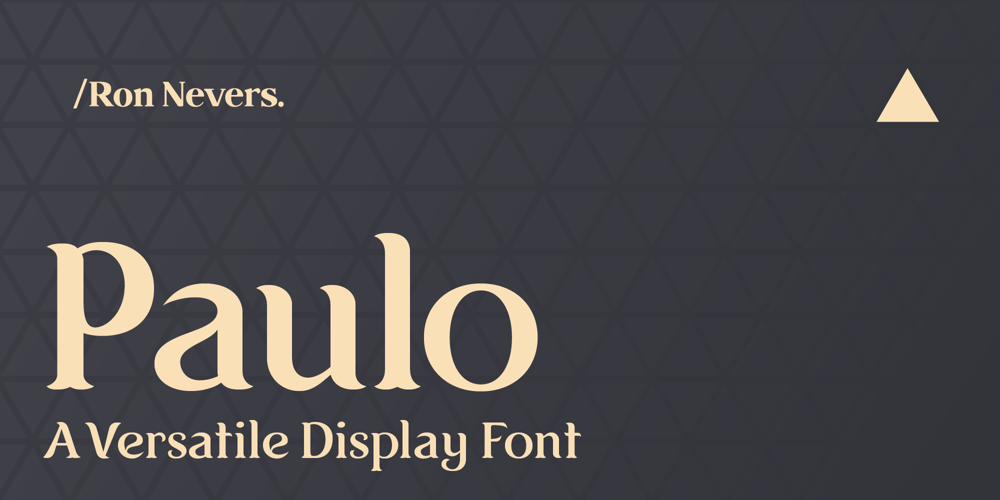
Paulo Font Family was designed by Ron Nevers and published by Ron Nevers. Paulo contains 1 styles and family package options. Paulo is a versatile display font with a modern take on the classic split bifurcated design. The clean, sleek look lends itself to logos and headlines. Created to feel familiar and new simultaneously, Paulo has a versatility that can invigorate your traditional designs with a fresh spin, giving them a timeless and modern feel. Its vertical nature and clean, swooshy serifs, create a rhythm that helps draw the eye. Paulo suits various design styles, from urban to an upscale look and feel.